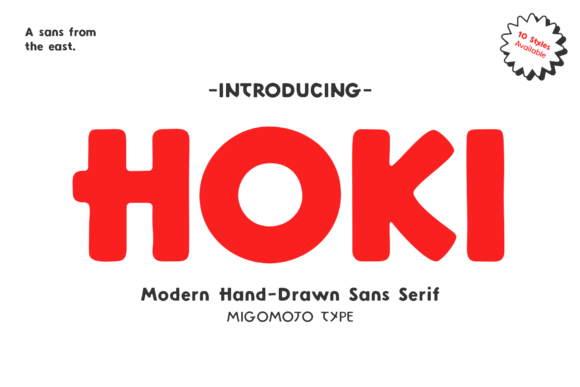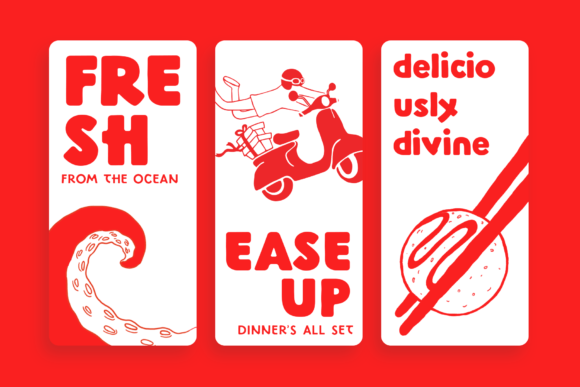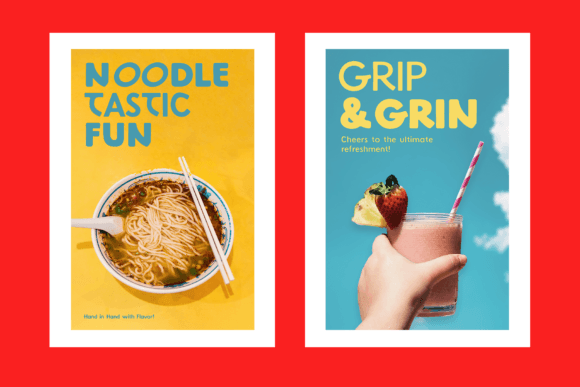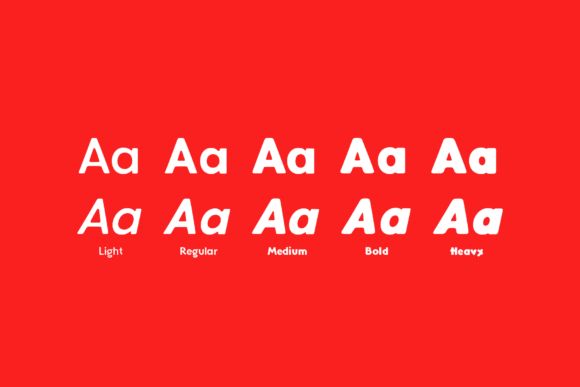
Hoki Font: A Playful Sans Serif for Modern Logo Design
About the Hoki Font
Discover the charm of Hoki Font. This font is a perfect blend of modern aesthetics and classic appeal. Hoki is a contemporary hand-drawn sans-serif font meticulously crafted to embody the essence of Asian typography with a modern twist. Clean, playful, and organic, Hoki is inspired by the artistic traditions of East Asia, seamlessly blending traditional aesthetics with a fresh and dynamic design.
Hoki’s playful yet clean aesthetic makes it ideal for branding projects requiring a modern, approachable feel, particularly logos, short headlines, and packaging designs. It also works well in posters or social media graphics where a touch of hand-drawn charm is desired. However, its organic nature and varying stroke weights make it less suitable for body text or UI elements requiring high legibility in smaller sizes.
Pairing Hoki effectively depends on the desired emphasis. For a bolder statement, consider pairing it with a geometric sans-serif like Montserrat or a clean serif like Playfair Display. To maintain a softer feel, a script font like Great Vibes or a rounded sans-serif such as Lato could complement its organic forms.
Hoki’s overall personality is best described as friendly and modern, possessing a youthful energy without being overly childish. This makes it a versatile choice for brands targeting a younger demographic or those seeking a fresh, approachable brand identity.
Hoki Font Usage Examples
Hoki Font Example